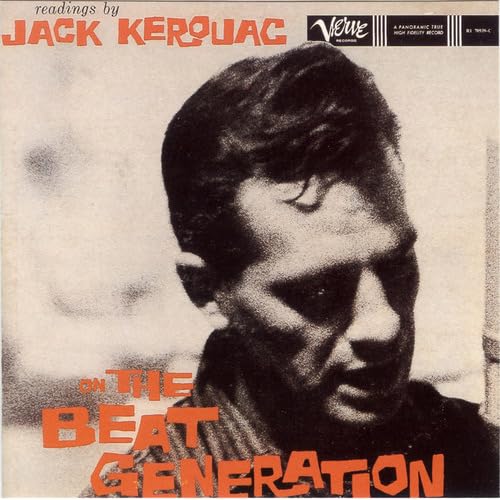
I'm looking for suggestions for fonts that give the feeling of the 'beat generation' please. In an ideal world they'd be US fonts circa 1948-55 but the date isn't an essential feature~ far more important is the 'beat' feel of the font!
What's the orange font please?